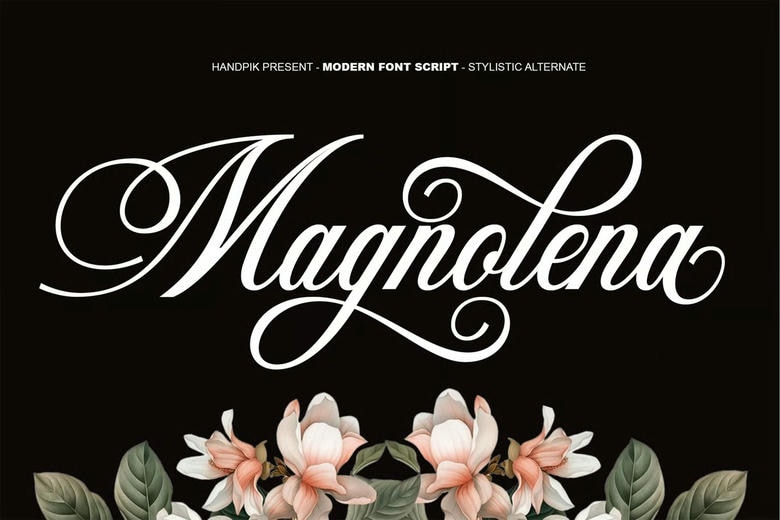
Magnolena Font
Magnolena is a high quality calligraphy font that is designed by Handpikproject and is available for free download and personal use. The free version provides all uppercase and lowercase letters and a few special characters too.
Magnolena will perfect for many project: book, magazines, logo, branding, photography, quotes, blog header, poster, advertisements, etc.
Magnolena Calligraphy Script Font